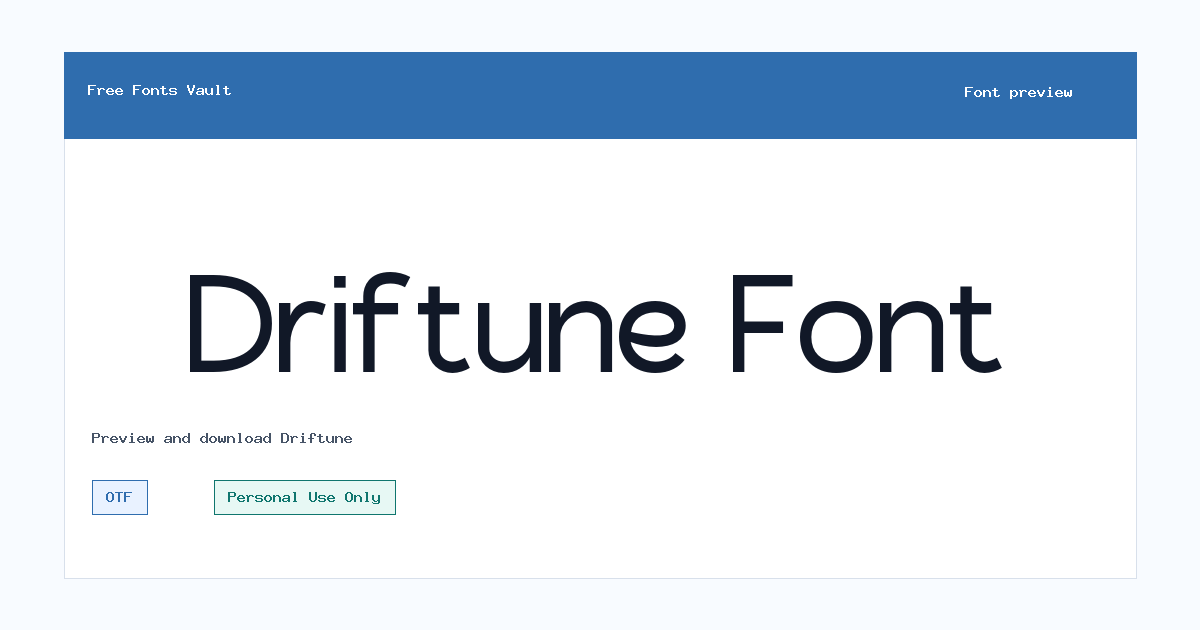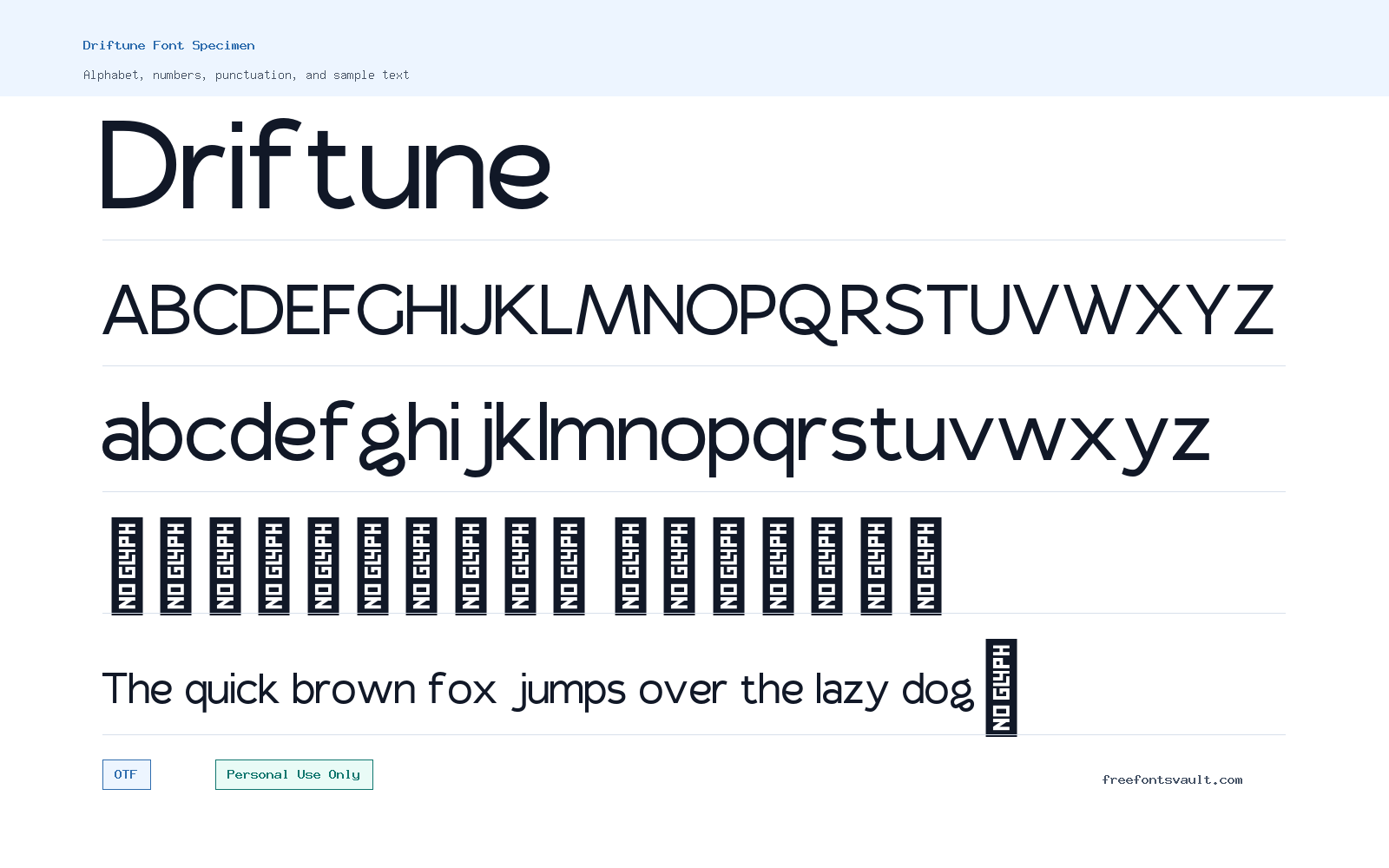
Driftune
Driftune is a bold sans serif demo font with an OTF file format and a Personal Use Only license. It is a good choice to preview when you need firm, clean lettering for short text rather than long paragraphs.
Driftune has the practical shape of a sans serif and the stronger presence of a heavy display weight. The available file is marked as SemiBold, with a 700 weight value, so it is better suited to words that need to stand out: titles, labels, cover text, social graphics, simple poster lines, and branding mockups for personal drafts. Because only one style is listed, the safest way to use it is as a headline or accent font rather than a full typography system.
Before downloading, try the preview with the exact words you plan to use. Look closely at spacing, letter pairs, punctuation, numbers, and mixed-case text. A bold sans serif can look strong in short phrases, but it may feel dense if used for body copy or small captions. For cleaner layouts, pair Driftune with a quieter text face and leave enough space around the letters. If you are testing it for a logo idea, packaging concept, website hero, or merchandise mockup, remember that the listed license is Personal Use Only, so commercial use needs separate permission or a different license.
• Bold sans serif style for short, high-impact text
• Personal posters, headers, and social media graphics
• Logo drafts, title treatments, and display text previews
Use Driftune where a bold sans serif can carry a short message. Test uppercase, lowercase, numbers, and punctuation in the preview before using it in a finished design, and avoid relying on it for long reading text.
What kind of projects is Driftune best for?
Driftune works best for short display text such as personal posters, headings, title graphics, logo drafts, and social media visuals.
Can I use Driftune for body text?
It is better to use Driftune for headings or accents. Its bold weight can become tiring in long paragraphs, especially at small sizes.